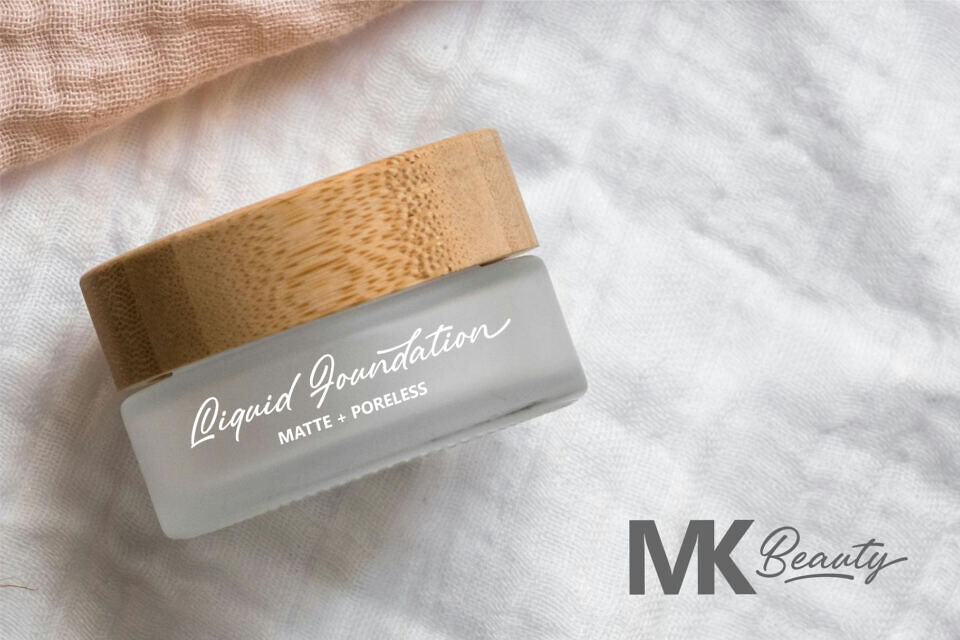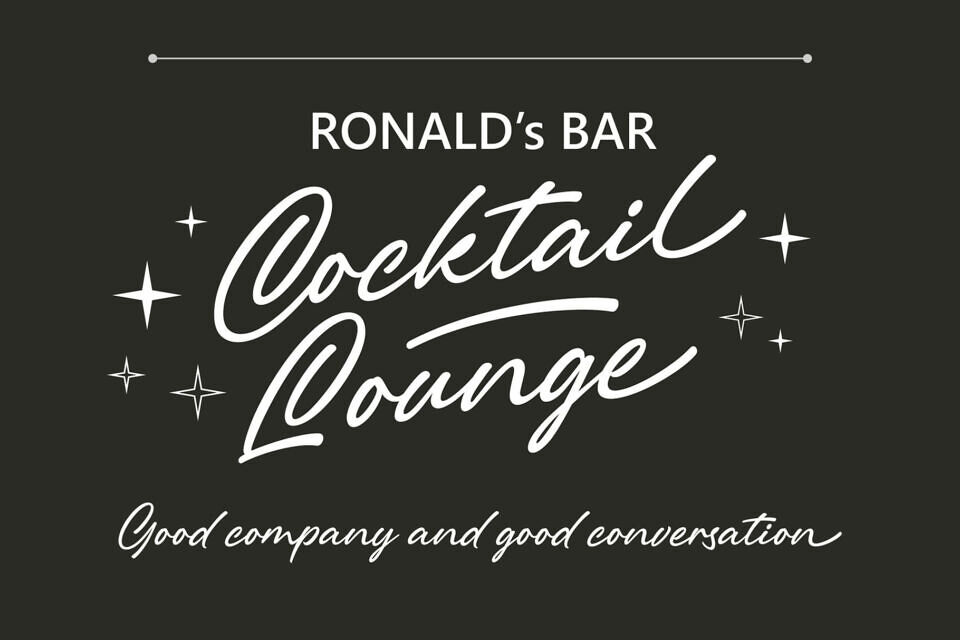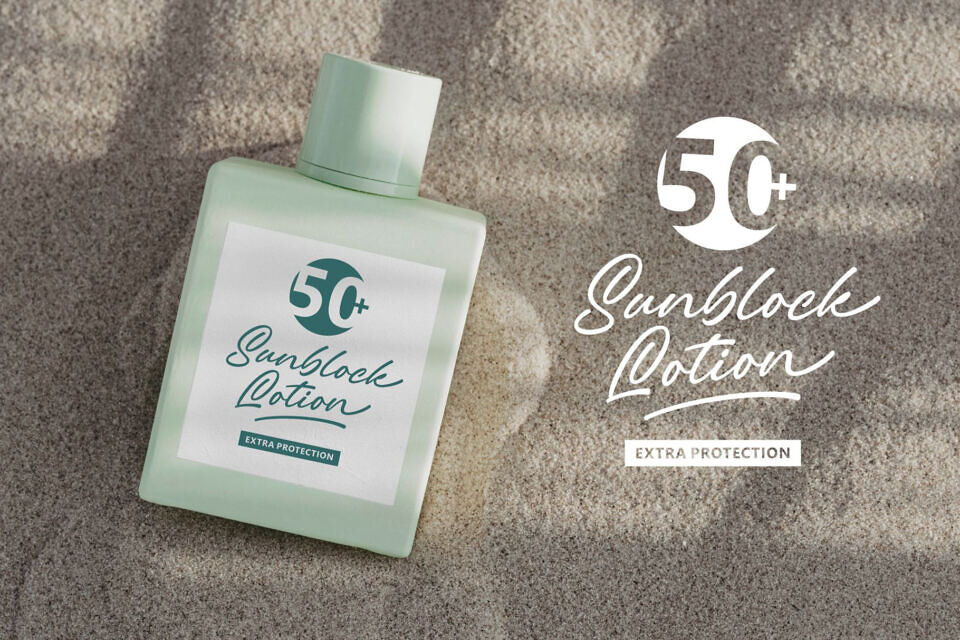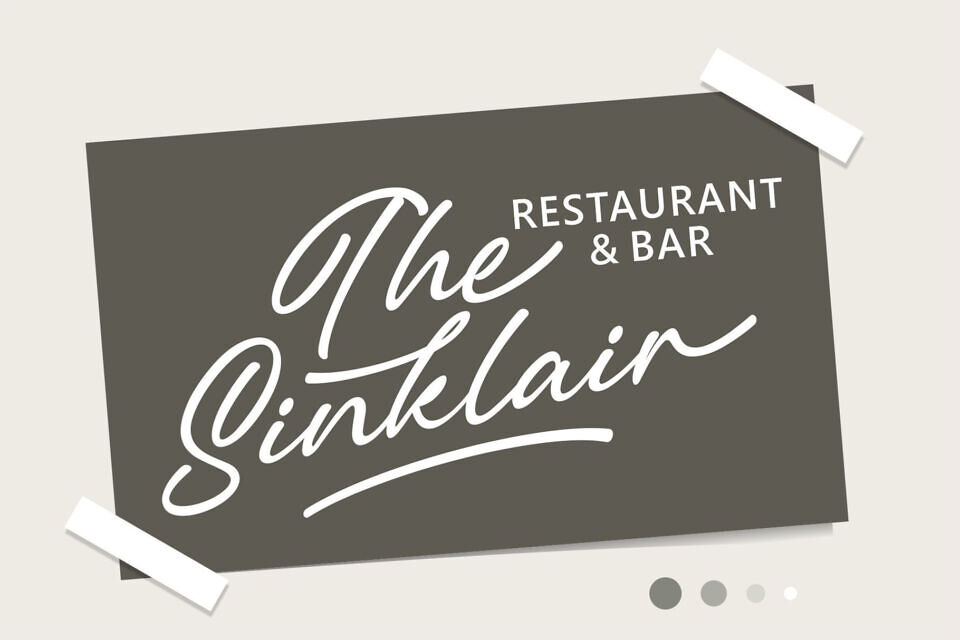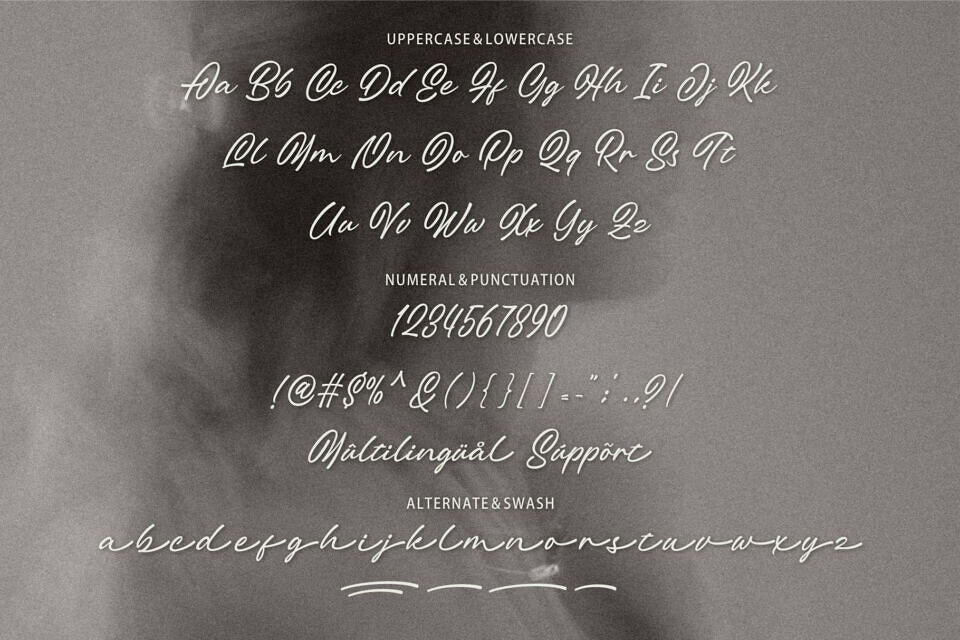
Mistyland Font
Introducing the “Mistyland” by Hanzel Space Studio.  This font is inspired by an elegant design and its anatomy looks proportional and attractive in every curve so that this font is very suitable for use in various designs for product branding, logos, labels and others.